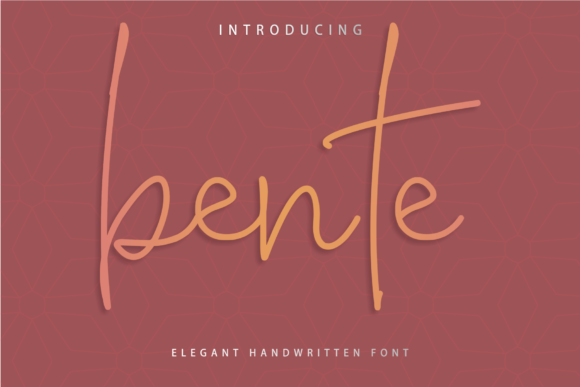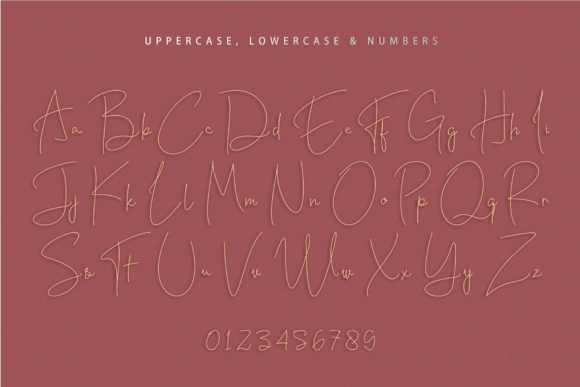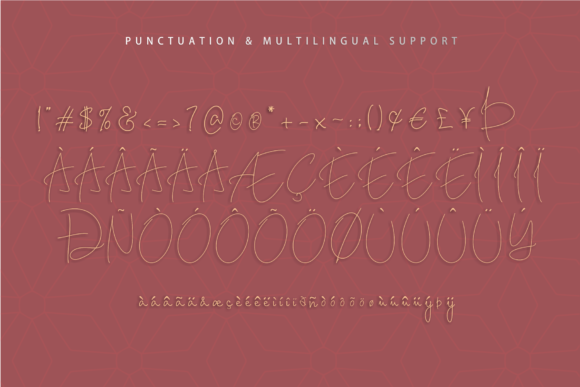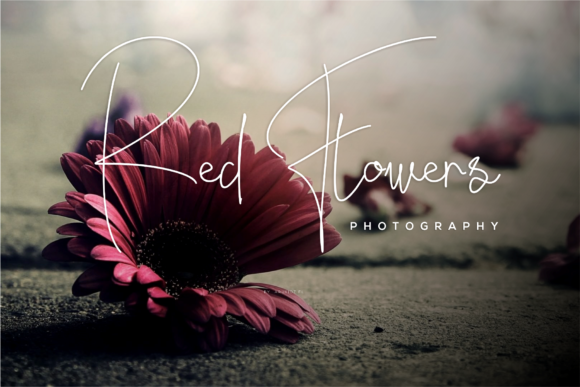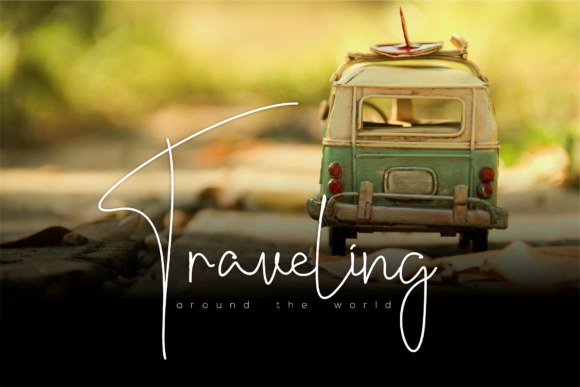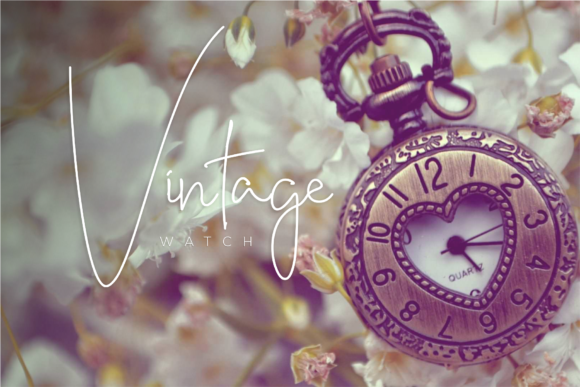
HomeScript FontsBente Font Script Fonts Bente Font FacebookXPinterestWhatsApp Bente Font Poster 2 Bente Font Poster 3 Bente Font Poster 4 Bente Font Poster 5 Bente Font Poster 6 About Bente Font Bente is an incredibly unique and stunning script with a bold vibe. Get inspired by its modern elegance. DOWNLOAD ON CREATIVE FABRICAThis font is sold and delivered by Creative Fabrica. Font Canyon may earn a commission if you buy through this link. People also explored Baby Seal Font Essencial Font Manic Astagina Font Pinky Font Coconut Milk Font Wisdom Merry Font Witter Font Happy Holiday Font Neuropol Nova 308 0 TagsBente Font Previous articleErfana FontNext articleRoyseen Font LEAVE A REPLY Cancel reply Comment: Please enter your comment! Name:* Please enter your name here Email:* You have entered an incorrect email address! Please enter your email address here Website: Save my name, email, and website in this browser for the next time I comment. Personal Use Free Winter Soldier Personal Use Free Read more about this font Adventure Font Personal Use Free Read more about this font Fake Receipt Personal Use Free Read more about this font Sunbright Font Personal Use Free Read more about this font BLOG Fonts That Capture the Spirit of New York City New York City is more than just a place—it’s an experience, a rhythm, a visual language... Free vs Paid Fonts: Why Investing in Premium Fonts Is Worth It How to Cut Any Font on Cricut: Convert a Font to SVG (Free) Transform Your Website: Elevate Your Typography with 7 Best Web Font Generators